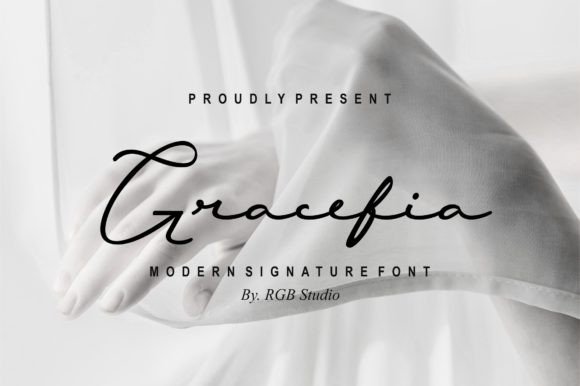
Journey into the world of Gracefia Font, a mesmerizing script font that will ignite your creative spirit and leave an everlasting impression on your audience. Step into a realm of elegance and sophistication as you explore the boundless possibilities that await you with Gracefia.
With its meticulously crafted strokes and enchanting curves, Gracefia exudes an aura of luxury and grace that will elevate your designs to new heights. Whether you're a seasoned graphic artist or just starting your creative journey, Gracefia is the perfect font to add a touch of refinement and uniqueness to your work.
Let Gracefia's timeless beauty captivate your audience, leaving them spellbound with its captivating presence. From branding and logos to magazines and handcrafts, Gracefia adapts seamlessly, adding a touch of magic to every project it graces.
Envision your designs adorned with Gracefia's elegant script, creating an unforgettable impact that lingers in the minds of your viewers. Picture wedding invitations adorned with Gracefia's graceful strokes, exuding an air of romance and elegance that will make your special day truly unforgettable.
With Gracefia, you'll discover a font that transcends the ordinary, transforming your designs into masterpieces that command attention. Its versatility knows no bounds, extending to book covers, posters, quotes, and so much more. Unleash your creativity and let Gracefia ignite your passion for design.
Don't settle for ordinary fonts that blend into the background. Embrace the power of Gracefia and watch as your designs flourish with newfound elegance and charm. This extraordinary font is your gateway to a world of distinction, where your creations will leave an enduring legacy.